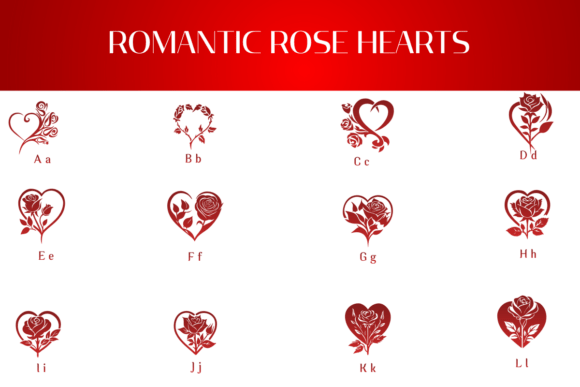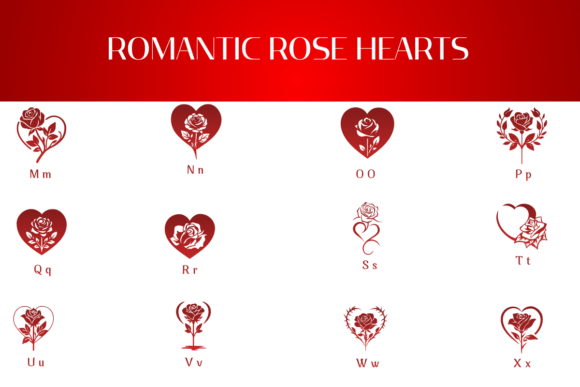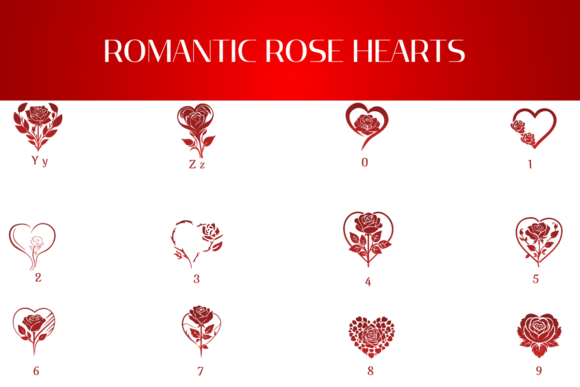
Introduction to Romantic Rose Hearts Font
Romantic Rose Hearts is a lovely dingbats font.
Why Choose Romantic Rose Hearts Font?
Romantic Rose Hearts Font offers exceptional quality and versatility, making it a valuable addition to your design toolkit. Whether you’re creating for personal projects or commercial use, Romantic Rose Hearts Font delivers professional results.